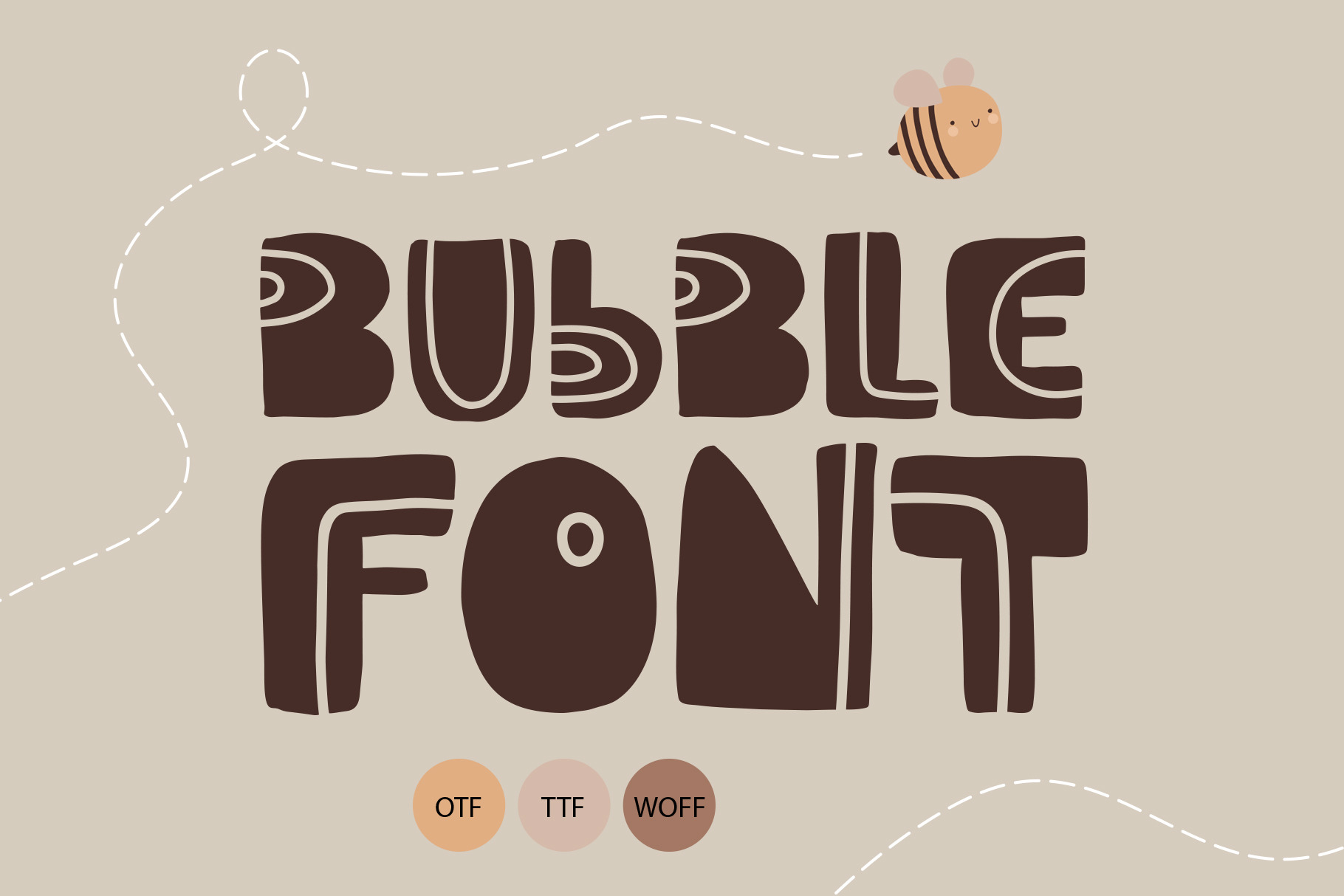
Bubble scandinavian Hand Drawn Font
Bubble Hand Drawn Font is cute baby girl`s and boy`s font for many Holiday designs. This Regular font for princess and for prince. It can to be used by all design needs, both for adults and children. Bubble Hand Drawn Font contains standard characters, numbers and punctuations.
Bubble Hand Drawn Font is Display font that give a fun and joy of holiday greeting cards, logo, invitations, design for postcard, instagram, pintesest, etc. Elegant ethnic romantic freshness to your handmade design.